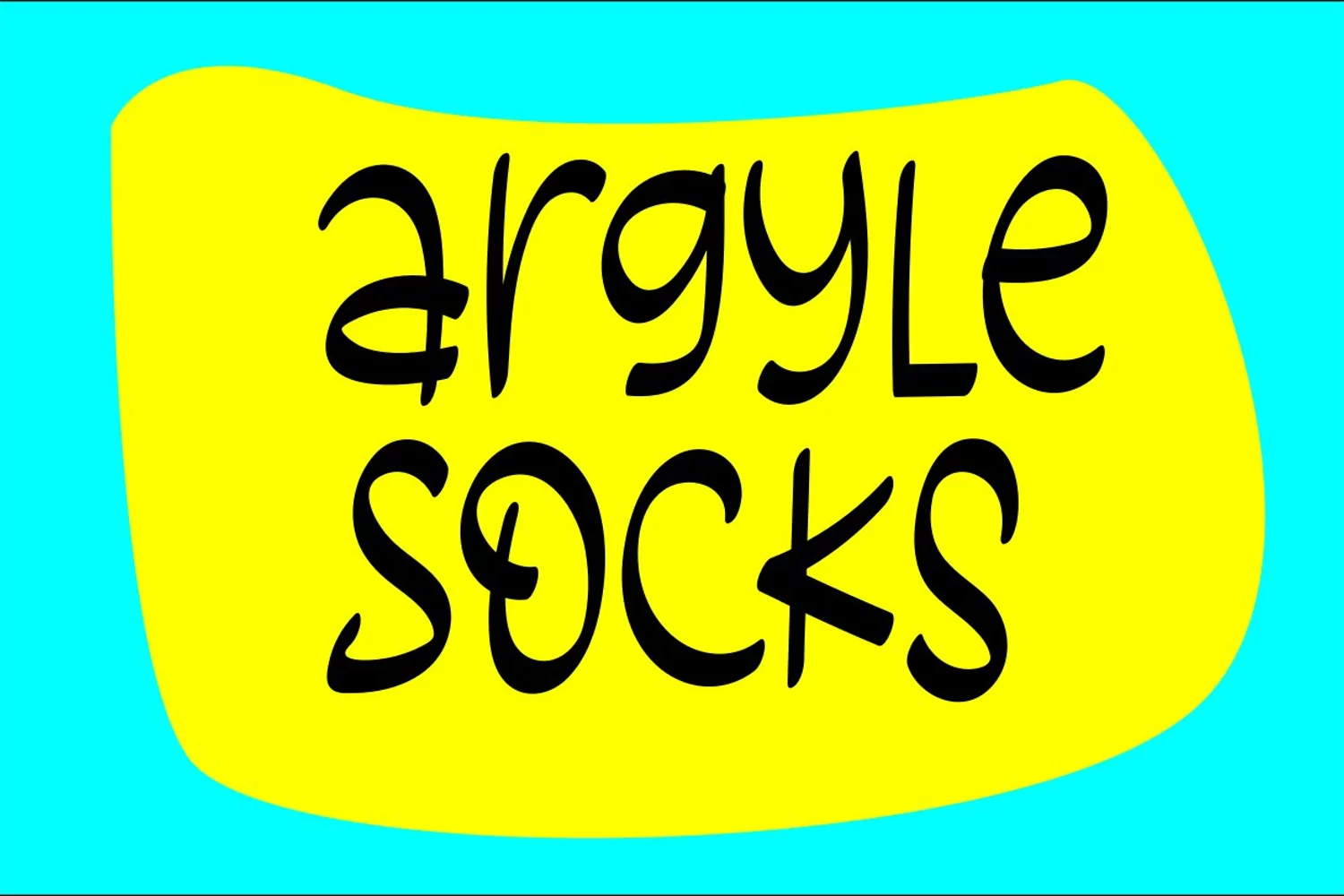
Blue Light a new fresh & simple handwritten font style! So beautiful on invitation like greeting cards, branding materials, business cards, quotes, posters, and more!!
BlueLight